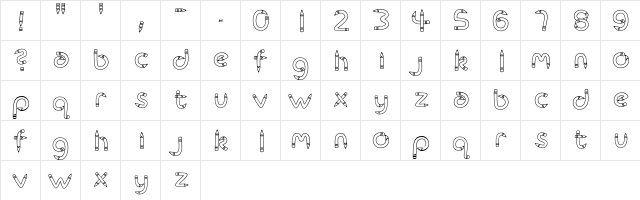
CK Rubber Pencil Regular
Design Context for CK Rubber Pencil Typeface
CK Rubber Pencil is a composed and adaptable typeface that performs quietly and consistently across a wide range of design contexts.